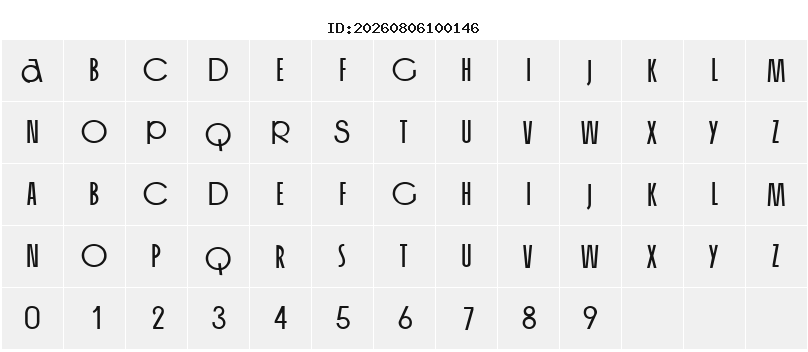
Organ DB Preview
About Organ DB.ttf
Organ DB.ttf is a modern, elegant sans-serif font designed for ultimate readability and visual harmony. Perfect for branding, headlines, web design, and print materials.